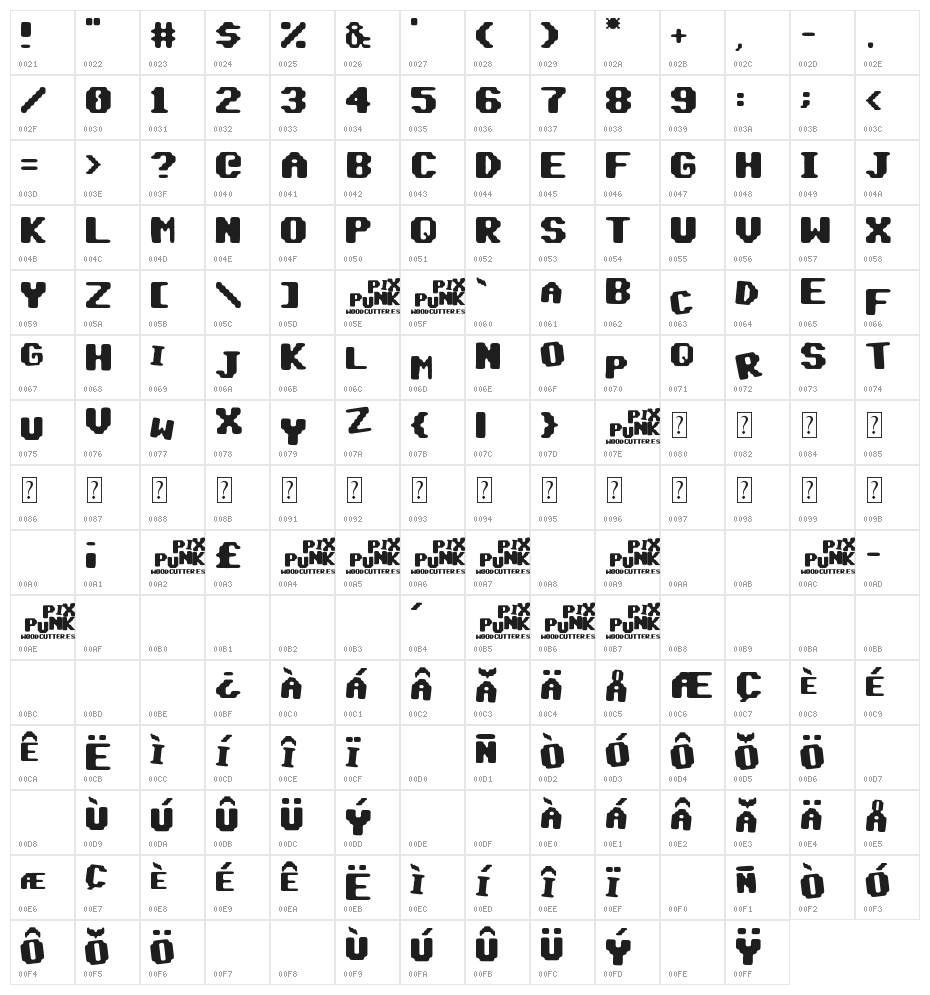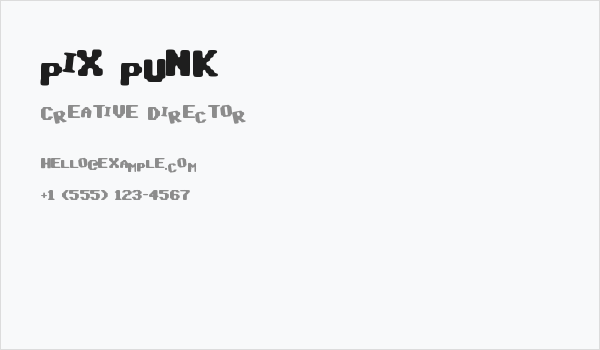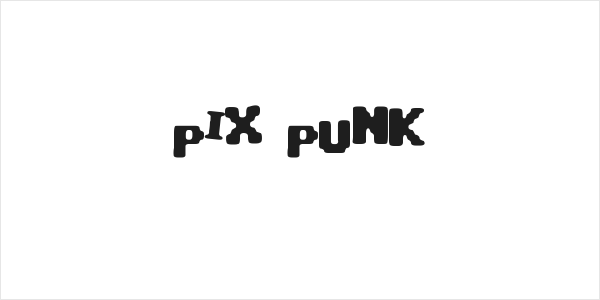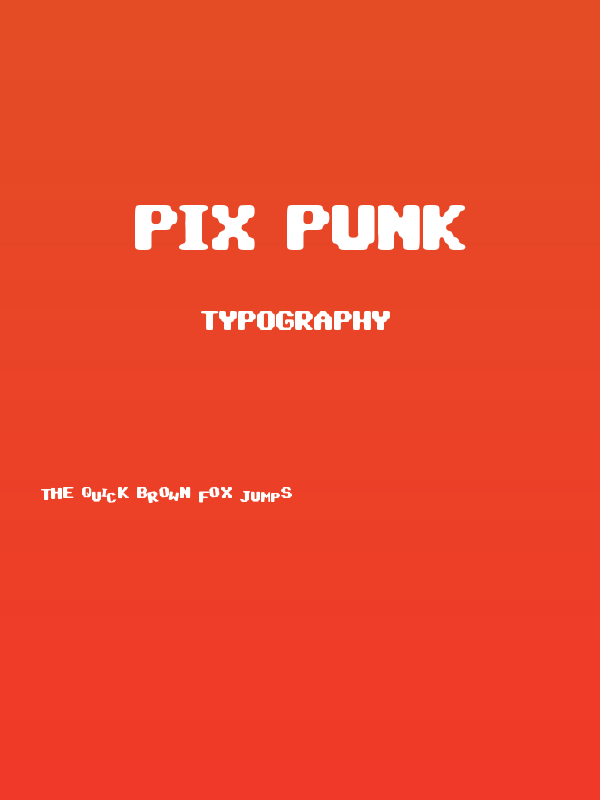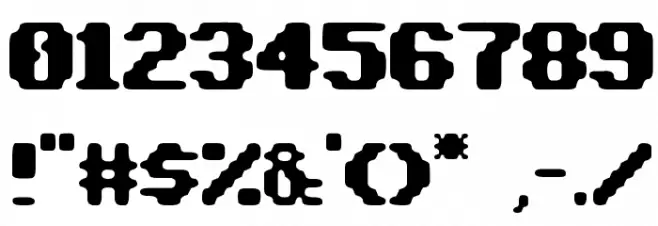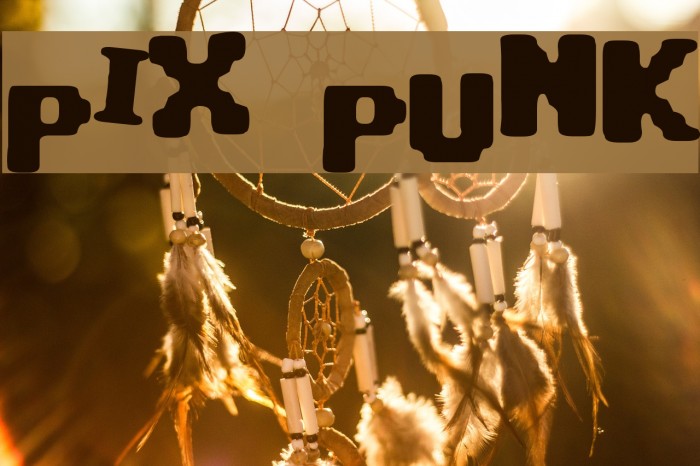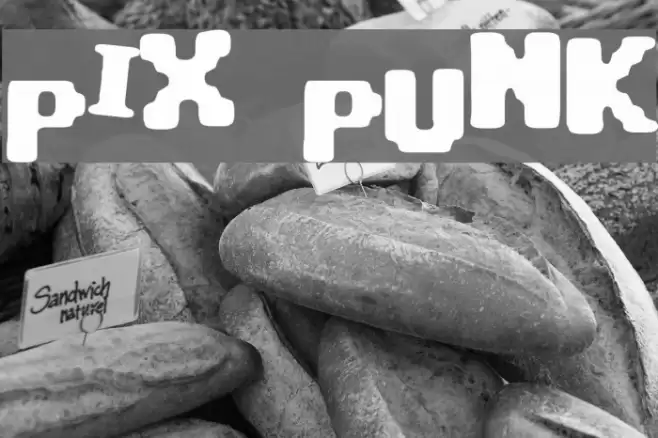
pix punk Font
✎ Distorted Eroded
pix punk Description
This font features a bold, edgy design with a distinctly pixelated and rugged appearance. Each character is crafted with a blocky, geometric style that gives it a digital, retro vibe reminiscent of early computer graphics. The uppercase and lowercase letters maintain a consistent thickness, contributing to a cohesive look. Numbers and special characters follow the same design principles, ensuring uniformity across all glyphs. The font's unique aesthetic makes it stand out, offering a playful yet assertive presence that can capture attention and convey a sense of modernity and nostalgia simultaneously.
| Use Case | Logos, Headlines, Posters |
| Proposed Projects | Ideal for video game graphics, tech-themed posters, digital art projects, and branding for tech startups. |